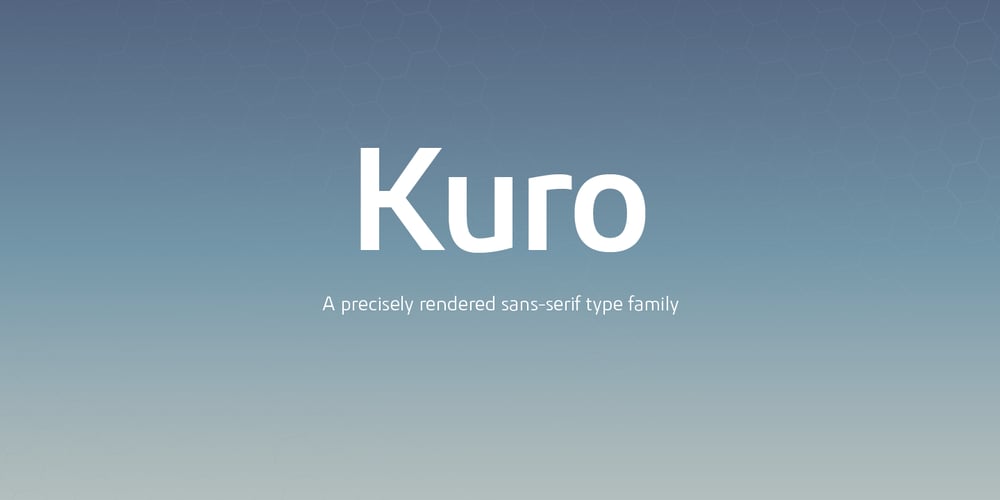
Kuro Font Family was designed by Jonathan Hill and published by The Northern Block. Kuro contains 8 styles and family package options. Kuro is a precisely rendered sans-serif type family. Modern geometric forms combined with subtle detailing create a charming, straightforward and versatile design. The lighter weights bring a contemporary touch to body copy while the bold weights add the strength of character to branding, identity and packaging. Details include eight weights, over 450 characters, manually edited kerning and Opentype features.